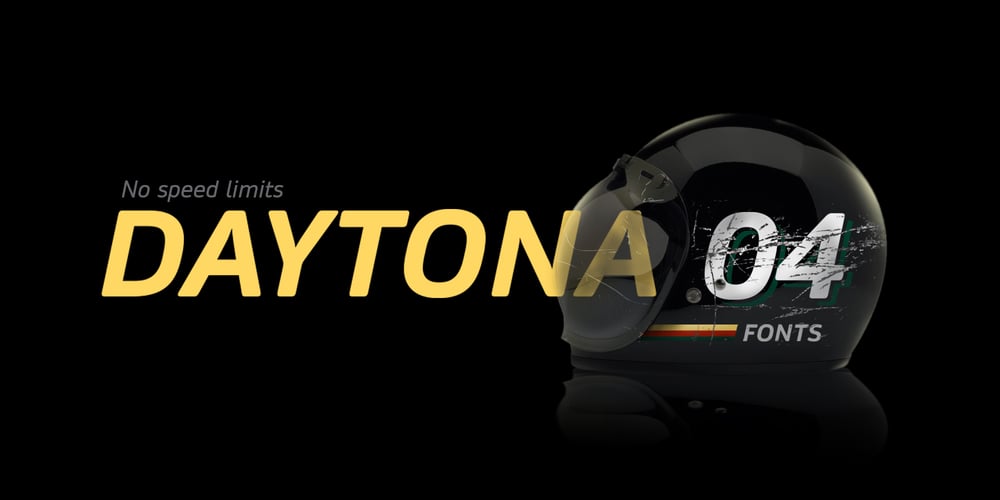
Daytona
Daytona font
Daytona Font Family was designed by Jim Wasco and published by Monotype. Daytona contains 18 styles and family package options. The Daytona™ typeface family grew out of a desire to provide improved fonts for use in televised sporting events. Jim Wasco drew the design as sturdy squared letters based on humanist shapes and proportions. Letters were kept narrow for economy of space, and inter-character spacing was established for easy reading. While televised sporting events may have initially been his target, the design considerations he incorporated into the Daytona family also enabled it to perform well in a variety of other video and on screen environments.Daytona Variables are font files which are featuring two width axes and have a preset instance from Thin to Fat.